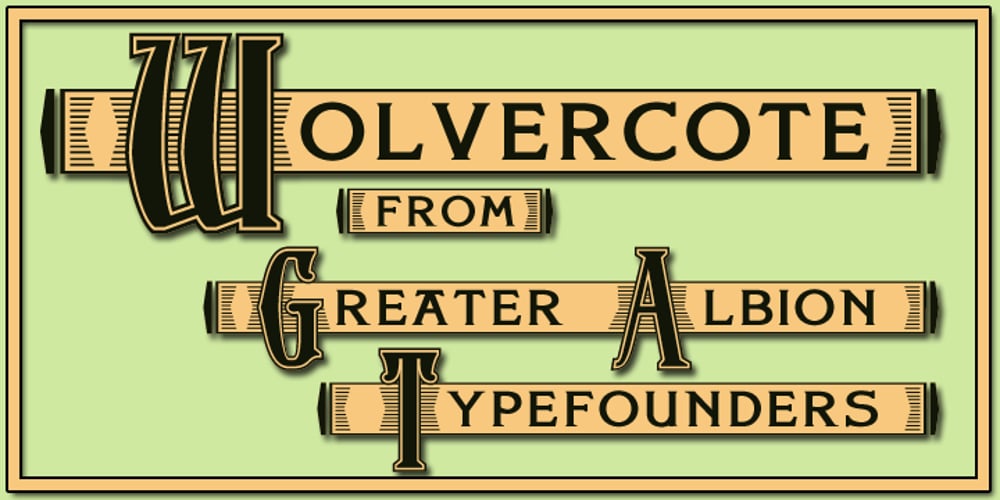
Wolvercote Font Family was designed by Paul James Lloyd and published by Greater Albion Typefounders. Wolvercote contains 1 styles and family package options. Wolvercote is one of two new ‘Masthead’ typefaces from Greater Albion. This Victorian inspired face makes the construction of ribbon or cartouche banners and mastheads the simple work of a few moments. Wolvercote is also particularly designed to complement our Wolverhampton and Mexborough families.